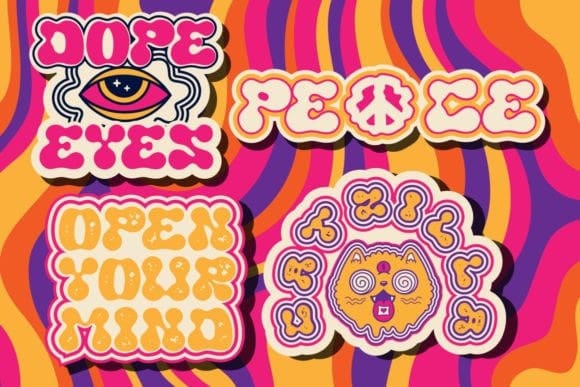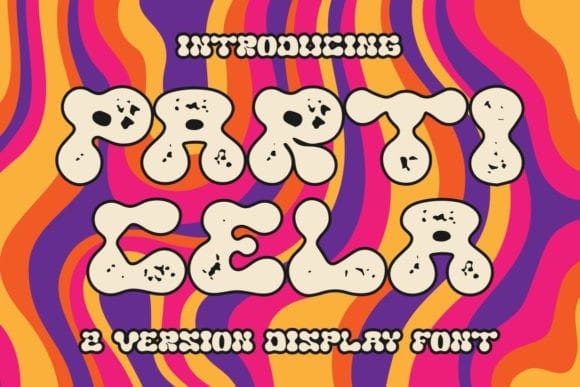
Particela Display Font
Particela Display Font is a fun and groovy display font. Its retro funky look will instantly enhance all your hippie designs! Particela is PUA encoded which means you can access all the glyphs and ligatures with ease!